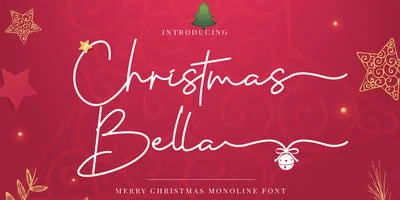
Christmas Bella Font
Christmas Bella Font is perfect for holiday greeting cards, festive wedding invitations, Christmas market branding, seasonal gift packaging, holiday party materials, winter wonderland campaigns, elegant Christmas decorations, seasonal restaurant menus, holiday boutique signage, and magical applications that celebrate the enchanting beauty and joyful elegance of the Christmas season.
What makes Christmas Bella Font truly exciting is its perfect fusion of holiday magic and elegant sophistication that captures the enchanting spirit of Christmas while maintaining graceful beauty and festive charm. This exceptional typeface embodies the essence of holiday celebration with its elegant letterforms and festive character that convey both seasonal joy and timeless sophistication. The font's Christmas-inspired personality and elegant holiday appeal make it perfect for brands seeking to communicate festive elegance, seasonal beauty, and the magical transformation that occurs when Christmas spirit meets sophisticated design sensibility.
The Christmas Bella Font family includes multiple weights and styles: Light, Regular, Medium, Bold, and Festive variations designed for maximum holiday impact. Each family member maintains the distinctive Christmas character while offering flexibility for diverse seasonal applications and elegant holiday branding systems. The comprehensive character set supports festive typography needs and seasonal design elements, making it suitable for international Christmas communications.
When you choose Christmas Bella Font, you're selecting a typography gift that delivers authentic Christmas magic and elegant holiday sophistication to every festive project. This enchanting typeface excels in applications where holiday spirit and elegant beauty are essential, delivering exceptional festive charm while maintaining sophisticated appeal. Whether you're designing Christmas brands, holiday campaigns, seasonal materials, or festive marketing content, this font provides the Christmas elegance and holiday magic that resonates with audiences who appreciate seasonal beauty, festive sophistication, and the joyful celebration of Christmas traditions with grace and style.